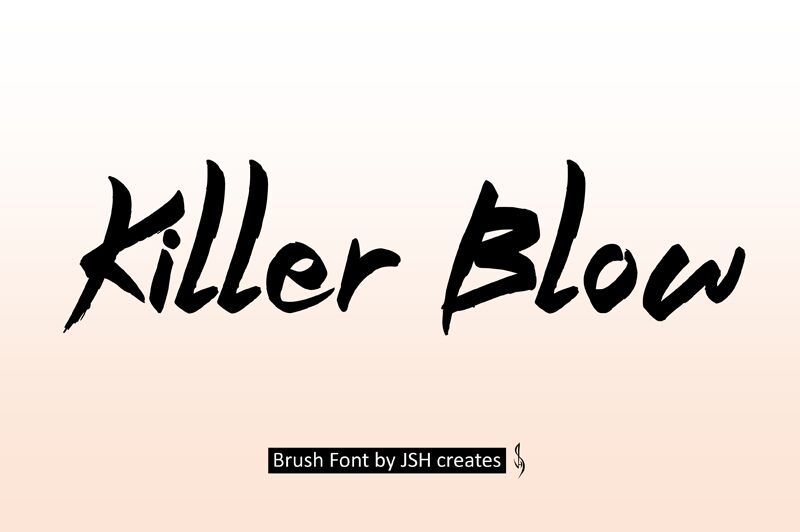
Killer Blow font, crafted by JSH creates, captures the raw energy of a brush stroke with its dynamic, edgy style. This free font stands out with its bold and expressive appearance, making it perfect for eye-catching designs. The natural flow and textured edges evoke a sense of creativity and spontaneity.
Ideal for projects that demand attention, Killer Blow is suited for branding, posters, and digital art where individuality is key. Its robust presence ensures readability while conveying a sense of artistic boldness. Whether you're creating logos or promotional materials, this font brings a unique flair to your work.